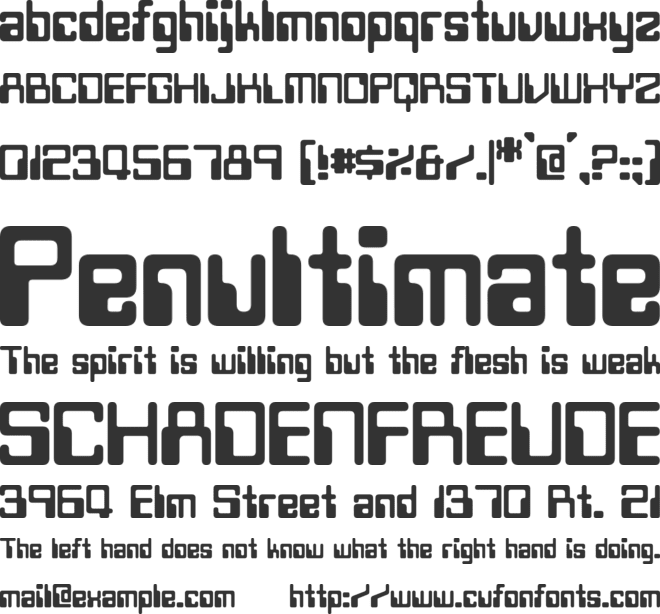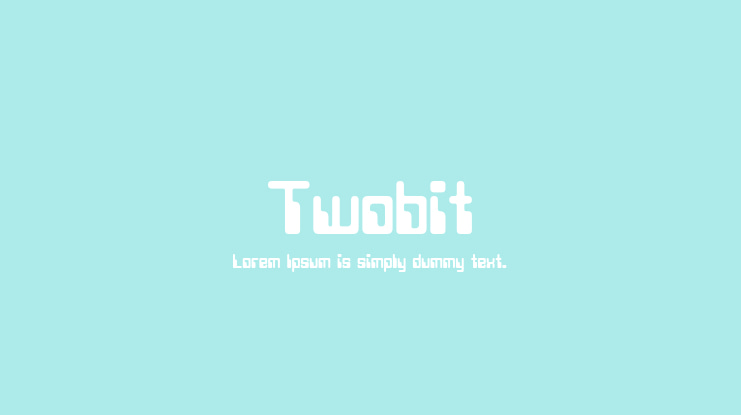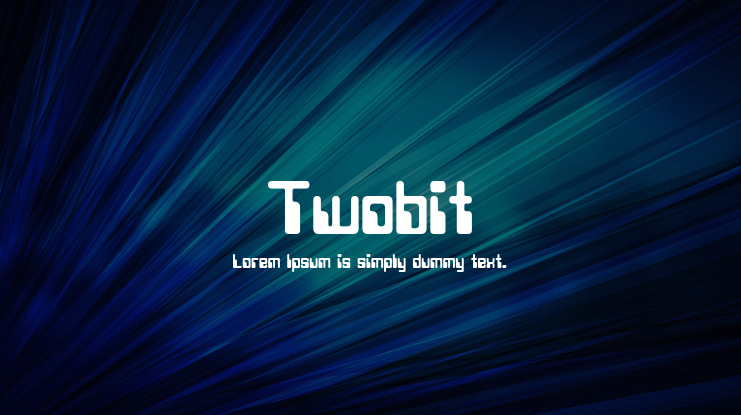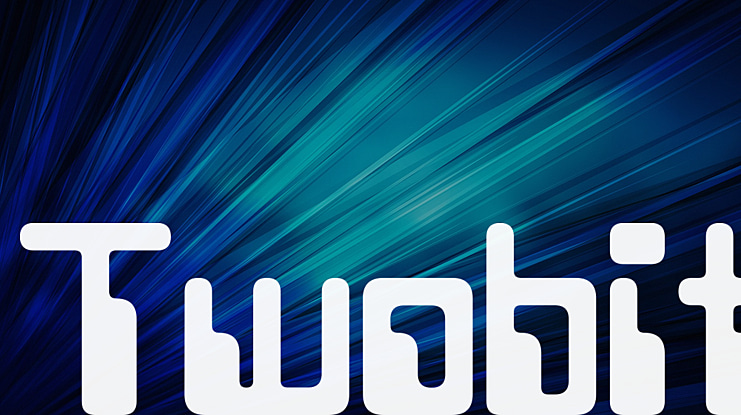
Twobit Font Family
This familiar typeface is based on the ‘retro-futuristic’ of computer and technology advertising of the 1960s and early 1970s. Includes full alphabet, punctuation, euro. Includes regular, bold, italic, and bold-italic versions. (Version 1.10)